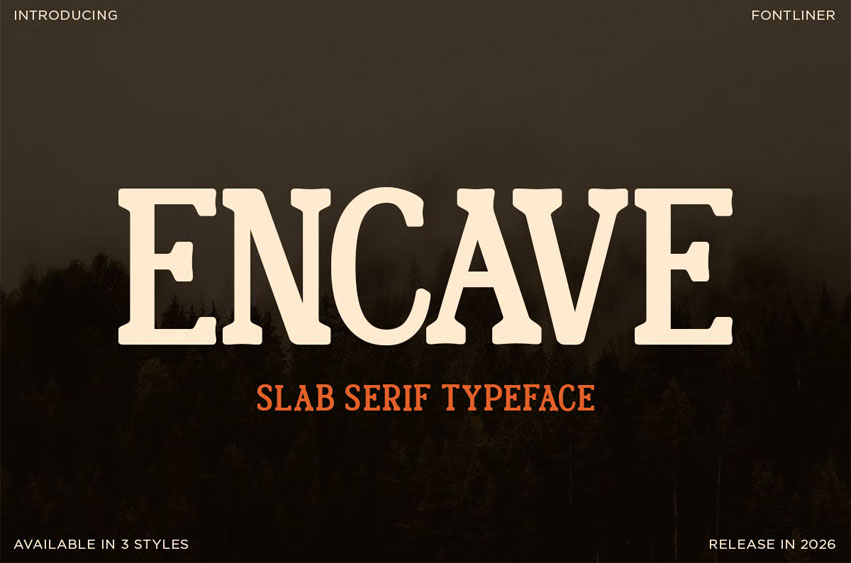
Encave Font is a bold slab serif typeface that captures the spirit of vintage exploration and timeless adventure. With its strong, sturdy letterforms and classic Western-inspired character, Encave evokes the feeling of old trail maps, rustic signage, and stories carved into history. Its retro aesthetic brings warmth and nostalgia, while the solid structure ensures modern versatility.
Perfect for branding, posters, and designs that seek to channel a sense of rugged charm, discovery, and enduring style, Encave stands as a typeface made for journeys—both past and present.